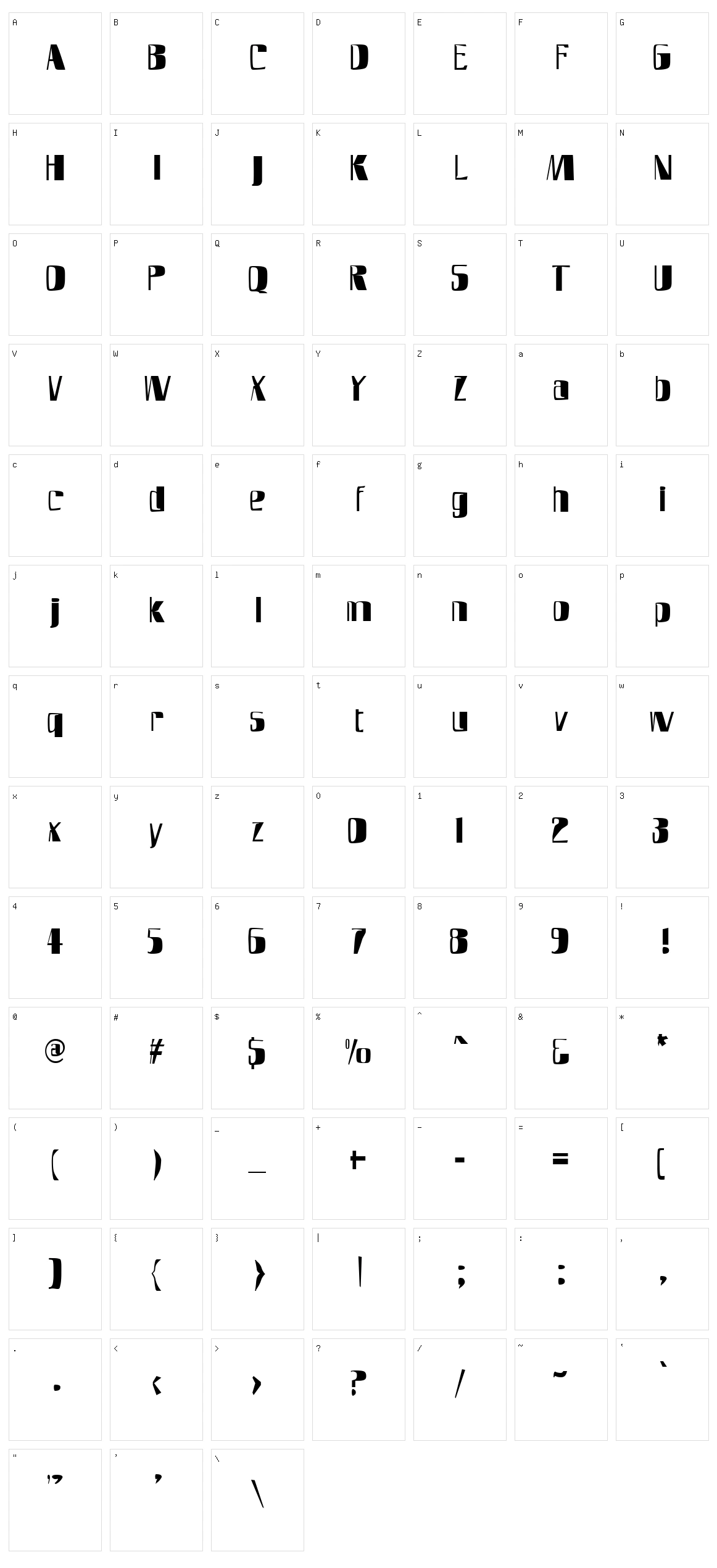
Slimfast AH is Fontgrubes first contribution to what is sometimes called "experimental typography". The characters are extremely distorted, slim on the left and fat on the right, such as in a process of fast slimming. It was not made for any serious purpose and is now capering through the net, wild, playful and untameable. If you succeed in persuading this creature to do any purposeful work for you, be it personal or commercial, go ahead. This font is wild and free. If you manage you can have it do what you want. But should you catch and display it in your online zoo of fonts, mind the rules for giving away its children in the license section.
Andreas Höfeld